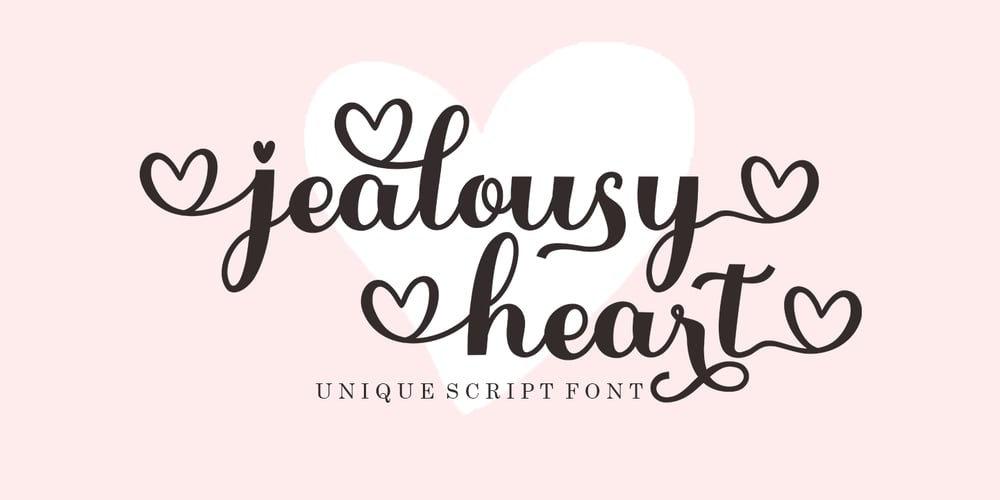
Jealousy Heart
Jealousy Heart font
Jealousy Heart Font Family was designed by Mu Fazzal and published by Bosstypestudio. Jealousy Heart contains 4 styles and family package options. Jealousy Heart is a script type family of four fonts. It is inspired by Lovely Fonts and has a soft and welcoming look. Jealousy Heart can be used for branding, packaging and wherever you need a script font that is easy to read and smooth. Jealousy Heart has many ties, strokes, and alternative characters that will make your designs unique and beautiful.You can also purchase Jealousy Heart as a Font Family and adjust the weight of Jealousy Heart seamlessly between Italic and Bold weights. Note that you need design software that supports the Font Family.Thank You…